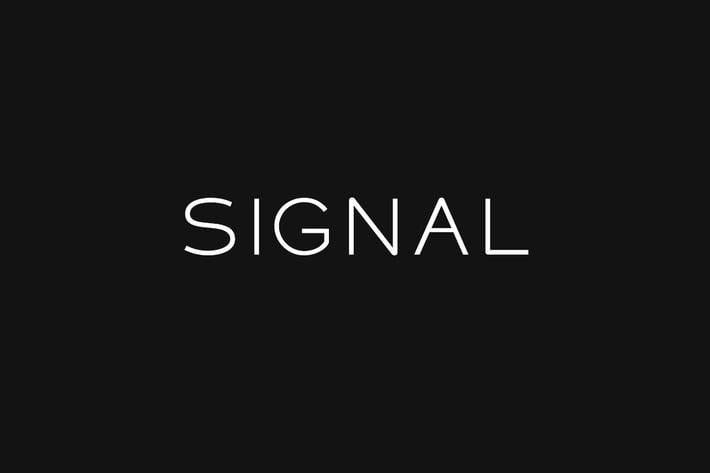
SIGNAL - Modern Display / Headline Typeface
SIGNAL is a new-age typeface for headlines, big text, branding, logotypes & display usage. This all-caps typeface is perfect for creating outstanding logos, promotional content and marketing graphics that can really grab attention from your visitors. Please see the examples shown above to get an idea about the capability of this typeface.
SIGNAL comes with 5 weights (Light / Normal / Bold / XtraBold / Heavy). This typeface is all-caps by default. The pack contains OTF, TTF and Web Fonts (all EOT, SVG, TTF, WOFF, WOFF2 everything is included).